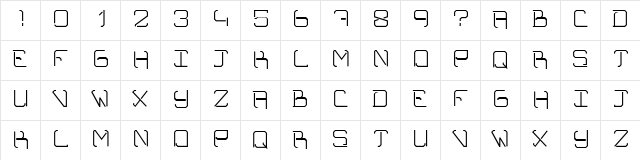
TYPORM01S Regular
Design Context for TYPORM01S Typeface
TYPORM01S takes a measured approach to typography — its balanced proportions and neutral character make it a reliable workhorse for both digital and print work.
Pro Tip: Use TYPORM01S in both headline and body roles to test its range before committing to a single application.